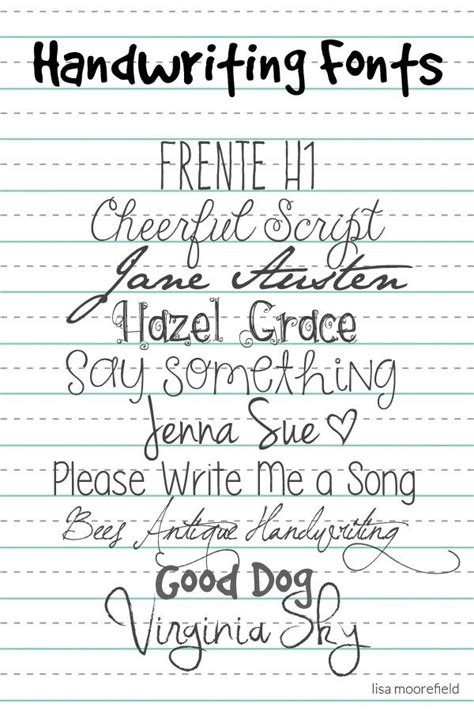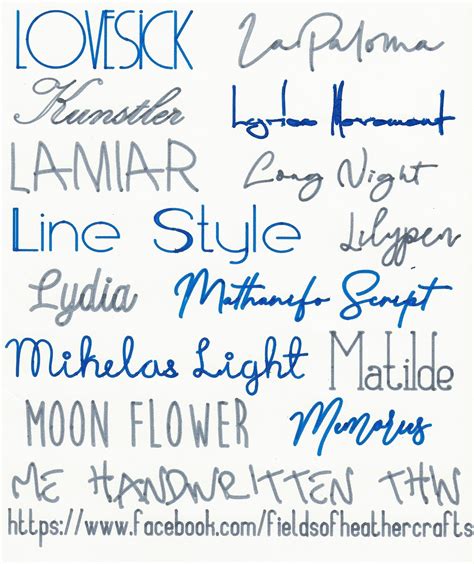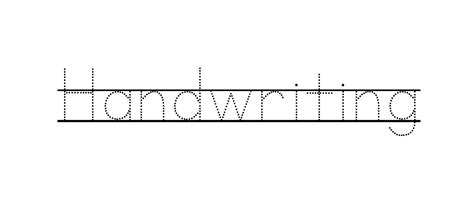
Font For Handwriting Lines : Lined_fonts_image | School fonts, Teaching handwriting ... / Write each line all on one line, leaving plenty of space between each line.. Download and install free handwritten fonts of the best quality from free fonts and use on your own personal and business related design purposes. Elegant fonts with natural hand scratches. Some are dashed fonts so students can easily trace over them to learn the movements required to form letters. To install the regular and bold victorian modern cursive fonts: Browse by alphabetical listing, by style, by author or by popularity.
Handwritten fonts are designed to represent the penmanship a person would use in a letter. 8 relevant web pages about chinese handwriting tracing dotted lines fonts. Added by shyann44 (1 style). It has a messy, rushed handwriting style, and even allows you to cross out or entirely scribble out letters. Archive of freely downloadable fonts.
Don't be afraid of playing around with curves, smooth lines, exaggeration or whatever. Some are dashed fonts so students can easily trace over them to learn the movements required to form letters. Elegant fonts with natural hand scratches. Royalister signature font is a signature handwriting font. Writing fonts include both printing and cursive styles and is less artistic than formal calligraphy. Hand writing hide show add to favorite download. Fonts that support the cyrillic language fontspring: Free abc print dotted font by fun 4 teachers | teachers.
Here are 50 free handwriting fonts you can incorporate into your designs to give them a unique, handwritten feel (without the time and hassle mix of strong lines (like the extended line of the lowercase d) and rounded elements (like the elegant curvature of the lowercase m).
1 downloads free for personal use. Handwriting fonts are written with a pen, pencil, or marker. Using clipart handwriting lines is time consuming and difficult to get to look the way you want. Royalister signature font is a signature handwriting font. Write each line all on one line, leaving plenty of space between each line. The best selection of handwriting fonts for windows and macintosh. 8 relevant web pages about chinese handwriting tracing dotted lines fonts. Added by shyann44 (1 style). Here are 50 free handwriting fonts you can incorporate into your designs to give them a unique, handwritten feel (without the time and hassle mix of strong lines (like the extended line of the lowercase d) and rounded elements (like the elegant curvature of the lowercase m). Download these free handwriting fonts, including free cursive fonts. Quickly create your own professional looking student worksheets with this easy to use handwriting lines font. Google fonts now supports variable fonts. If you want to make a personal blog or website stand out from all the rest, you can incorporate a fun handwriting font into the headers:
Originally made in 2020 by nihstudio font designer : I can't really say what the best one is because that's a matter of personal preferrence, but my favourites are: It grabs attention, and helps identify your brand. Some are dashed fonts so students can easily trace over them to learn the movements required to form letters. Royalister signature font is a signature handwriting font.
Reminiscent of writing with a sharpie, the tragic marker handwriting font has thick, clean lines that make it perfect for calling attention to important content. Download these free handwriting fonts, including free cursive fonts. In the age of social media and smartphones, probably, there are people, who have never heard about handwritten letters. You can use these fonts to create custom styles. Handwriting fonts bring a new artistry to fonts, as they are actually based on people's individual handwriting. To install the regular and bold victorian modern cursive fonts: Using clipart handwriting lines is time consuming and difficult to get to look the way you want. It has a messy, rushed handwriting style, and even allows you to cross out or entirely scribble out letters.
This is where i turn your submitted handwriting samples into fonts. Handwriting fonts bring a new artistry to fonts, as they are actually based on people's individual handwriting. Reminiscent of writing with a sharpie, the tragic marker handwriting font has thick, clean lines that make it perfect for calling attention to important content. All fonts are available to try, buy and download. Fast highlander handwrite regular by rogerio marques. Turn the paper horizontally if you need more room. Greek free fonts unicode fonts for ancient scripts. Southam script font is signature text with ink style & natural flow. 1 downloads free for personal use. To install the regular and bold victorian modern cursive fonts: Handwriting fonts for teachers mimic lettering used to teach print and cursive handwriting skills. I can't really say what the best one is because that's a matter of personal preferrence, but my favourites are: Licensed for personal and commercial use.
Hand writing hide show add to favorite download. Handwritten fonts are designed to represent the penmanship a person would use in a letter. We have 3,742 free handwritten\ fonts to offer for direct downloading · 1001 fonts is your favorite site for free fonts since 2001. Archive of freely downloadable fonts. 1 downloads free for personal use.
A round marker was used to define delius's stroke: So quite literally, they are handwritten in the sense that they should evoke. Write each line all on one line, leaving plenty of space between each line. Do you like handwriting fonts? Not careful print or decorative calligraphy, but fonts that emulate common, everyday handwriting while still remaining legible unlike many digitizations of handwriting, fineprint maintains a consistent harmony and balance across its letters in a line of text. Craft a personalized note with one of these amazing handwritten fonts below. It grabs attention, and helps identify your brand. You can use these fonts to create custom styles.
Do you like handwriting fonts?
French script mt lucida handwritting mistral segoe script i like these because they link the letters to each other like i do when i'm. Download and open the zip file. Download 10,000 fonts with one click for $19.95. Do you like handwriting fonts? Elegant fonts with natural hand scratches. This is where i turn your submitted handwriting samples into fonts. Greek free fonts unicode fonts for ancient scripts. If you want to make a personal blog or website stand out from all the rest, you can incorporate a fun handwriting font into the headers: The best selection of handwriting fonts for windows and macintosh. Reminiscent of writing with a sharpie, the tragic marker handwriting font has thick, clean lines that make it perfect for calling attention to important content. A folder vicmoderncursive will be created. This signature font is perfect for weddings, watermarks Not careful print or decorative calligraphy, but fonts that emulate common, everyday handwriting while still remaining legible unlike many digitizations of handwriting, fineprint maintains a consistent harmony and balance across its letters in a line of text.